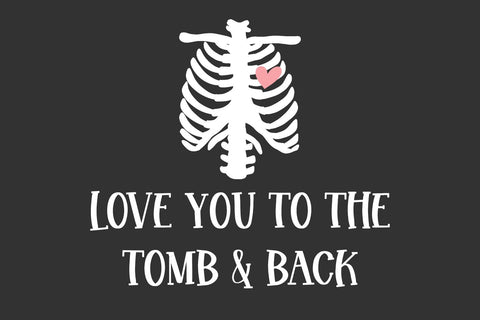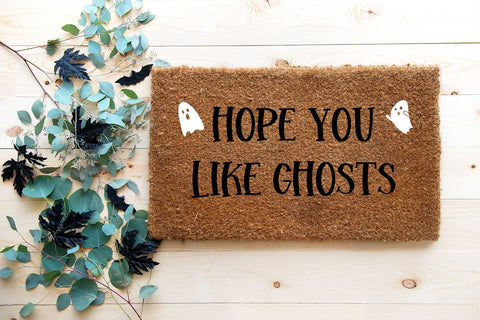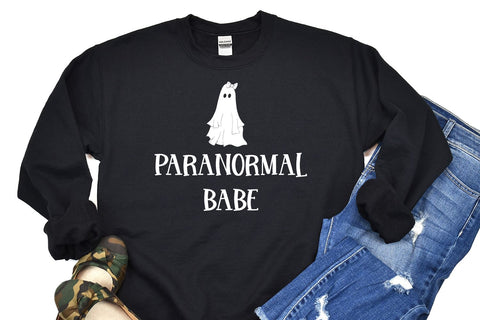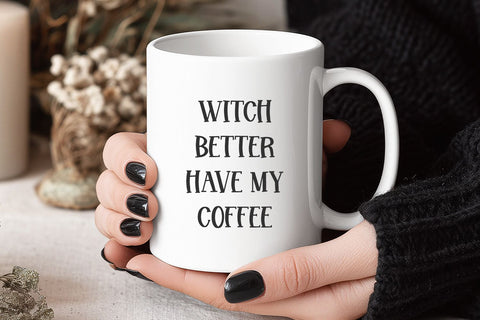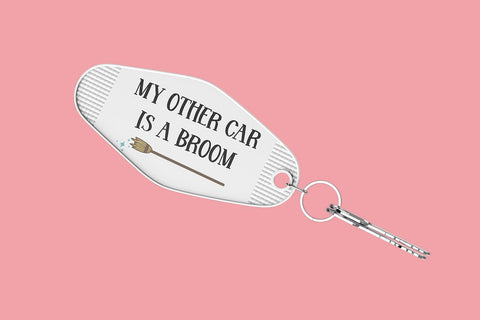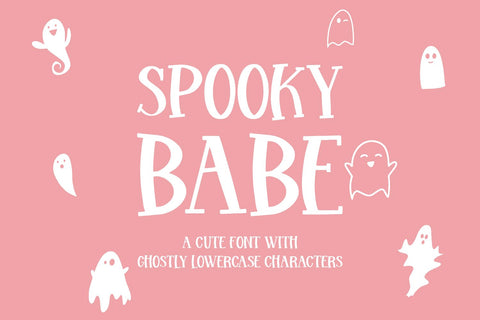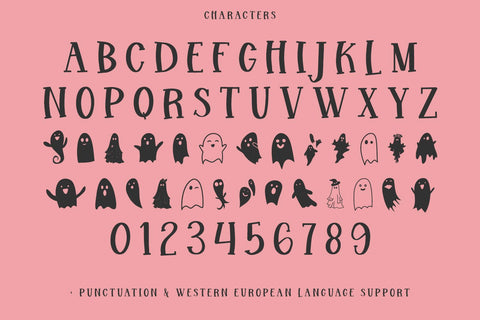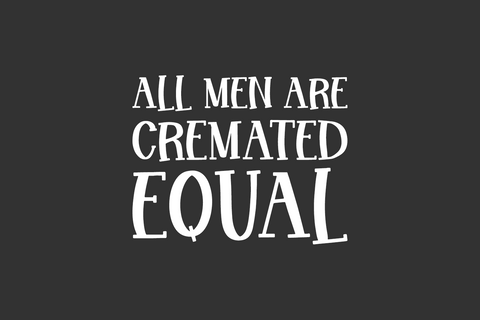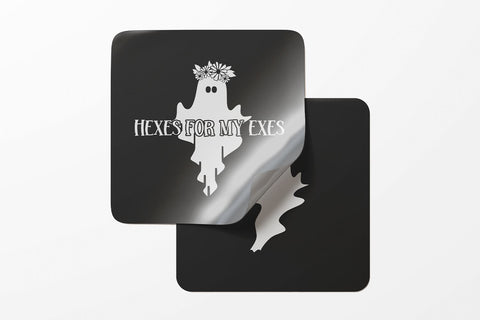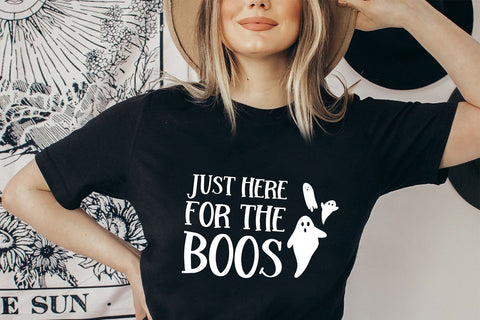
Spooky Babe Ghost Font
Spooky Babe is a super fun ghost-themed font! Spooky Babe includes all caps characters in the uppercase letter spots, and a selection of cute ghost doodles programmed into the lowercase letter spots. Use the uppercase letters for your projects, and add cute ghost accents by typing in lowercase. Crafters will love this font for cute Halloween shirts, stickers, mugs, doormats, invitations, home decor, and more!
Spooky Babe includes:
- full uppercase characters
- ghost doodles programmed into the lowercase letter spots
- numbers + punctuation
- Western European language support - English, French, Spanish, Portuguese (Brazil), Portuguese (Portugal), Italian, German (Germany), German (Austria), Dutch, Danish, Swedish, Norwegian (Bokmål and Nynorsk), Finnish, Icelandic, Irish, Welsh